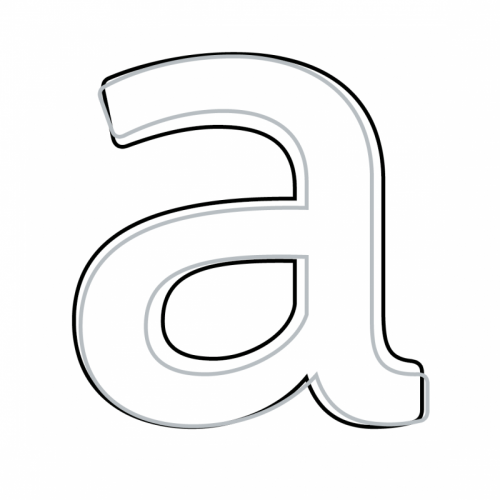
Grades are subtle changes in stroke weight, which (where available) can be selected to give a similar impression of the typeface under different conditions (e.g. different printing technologies and papers).
Dutch: varianten
German: Grauwert-Abstufungen